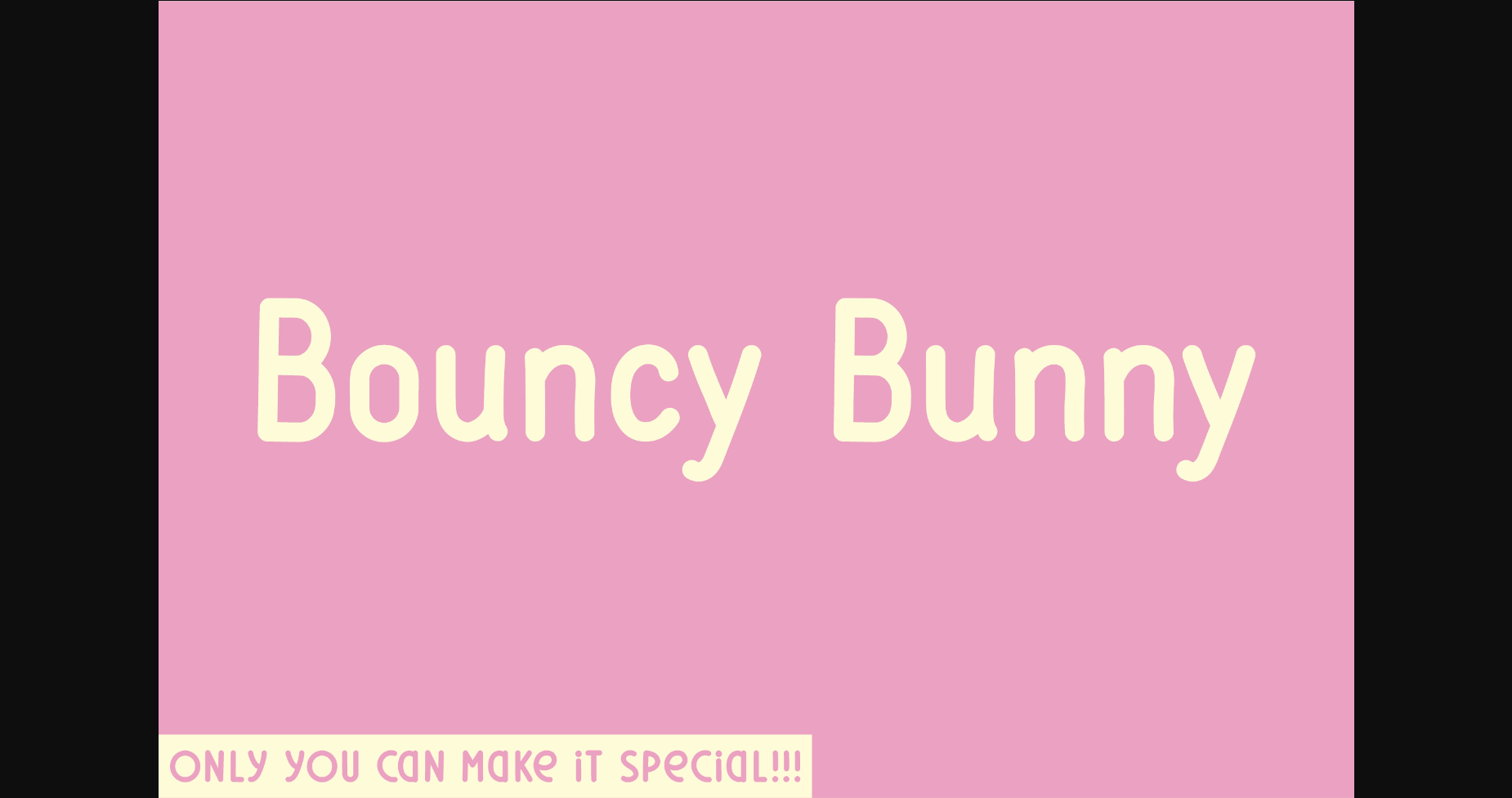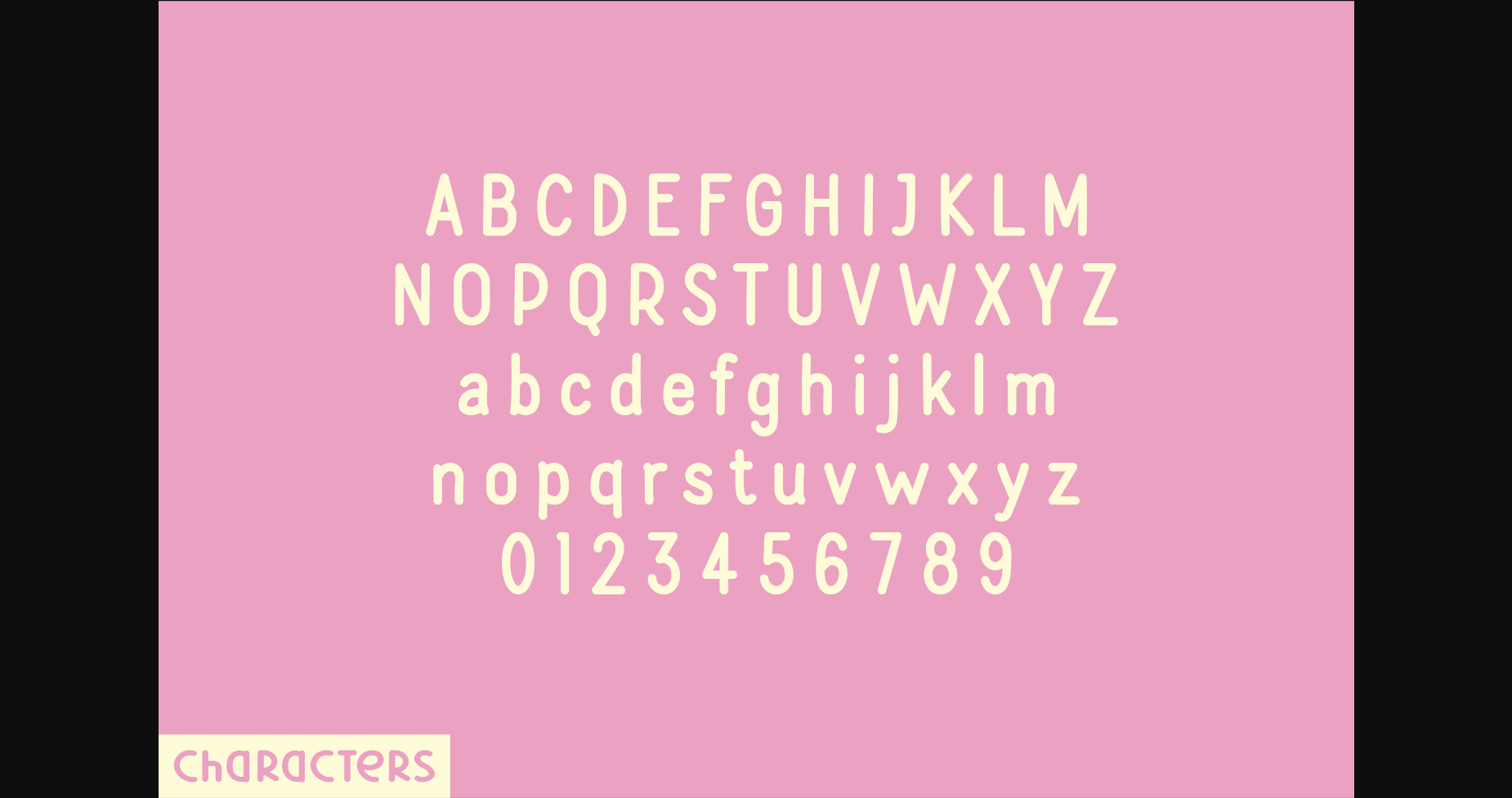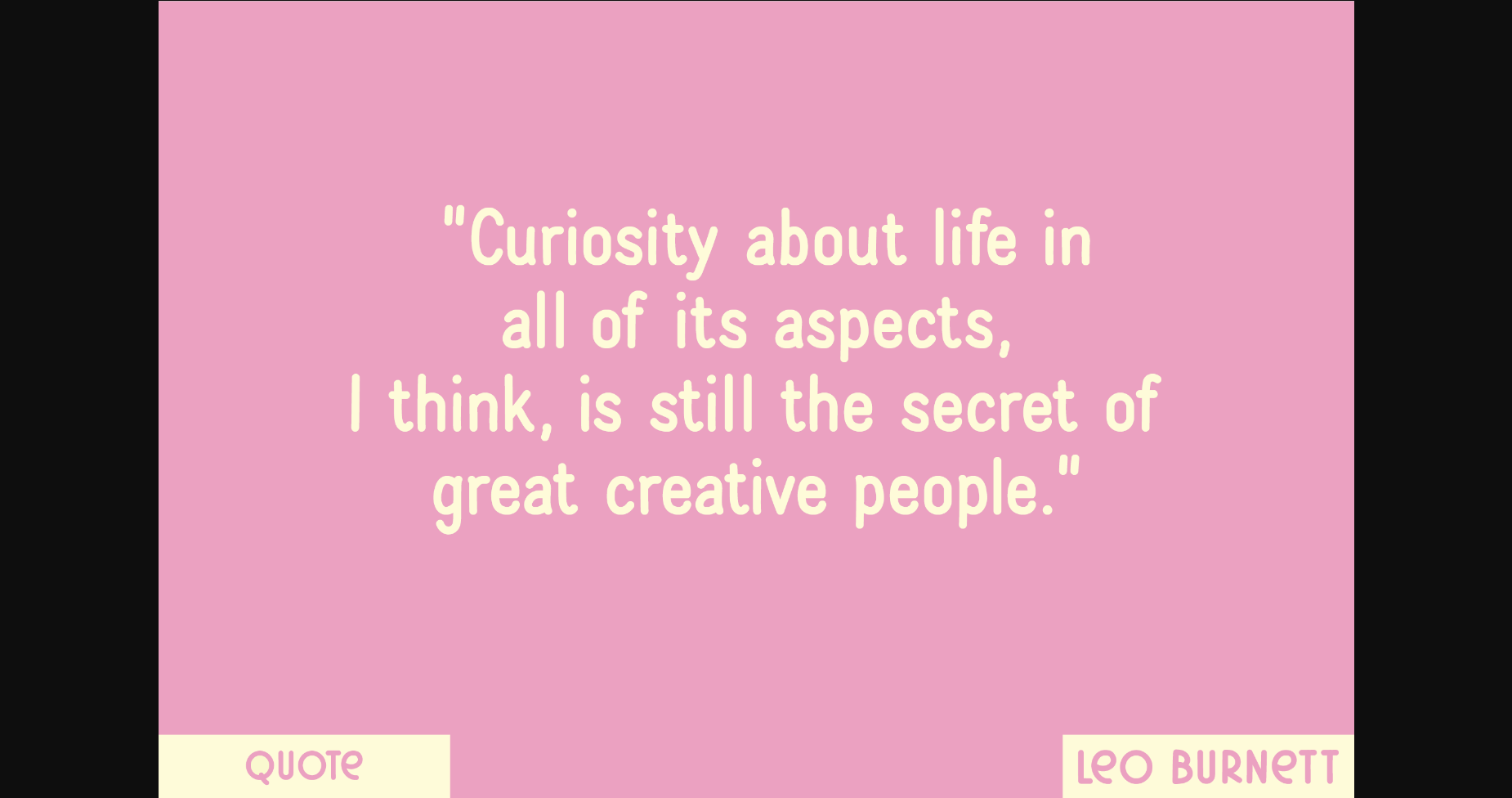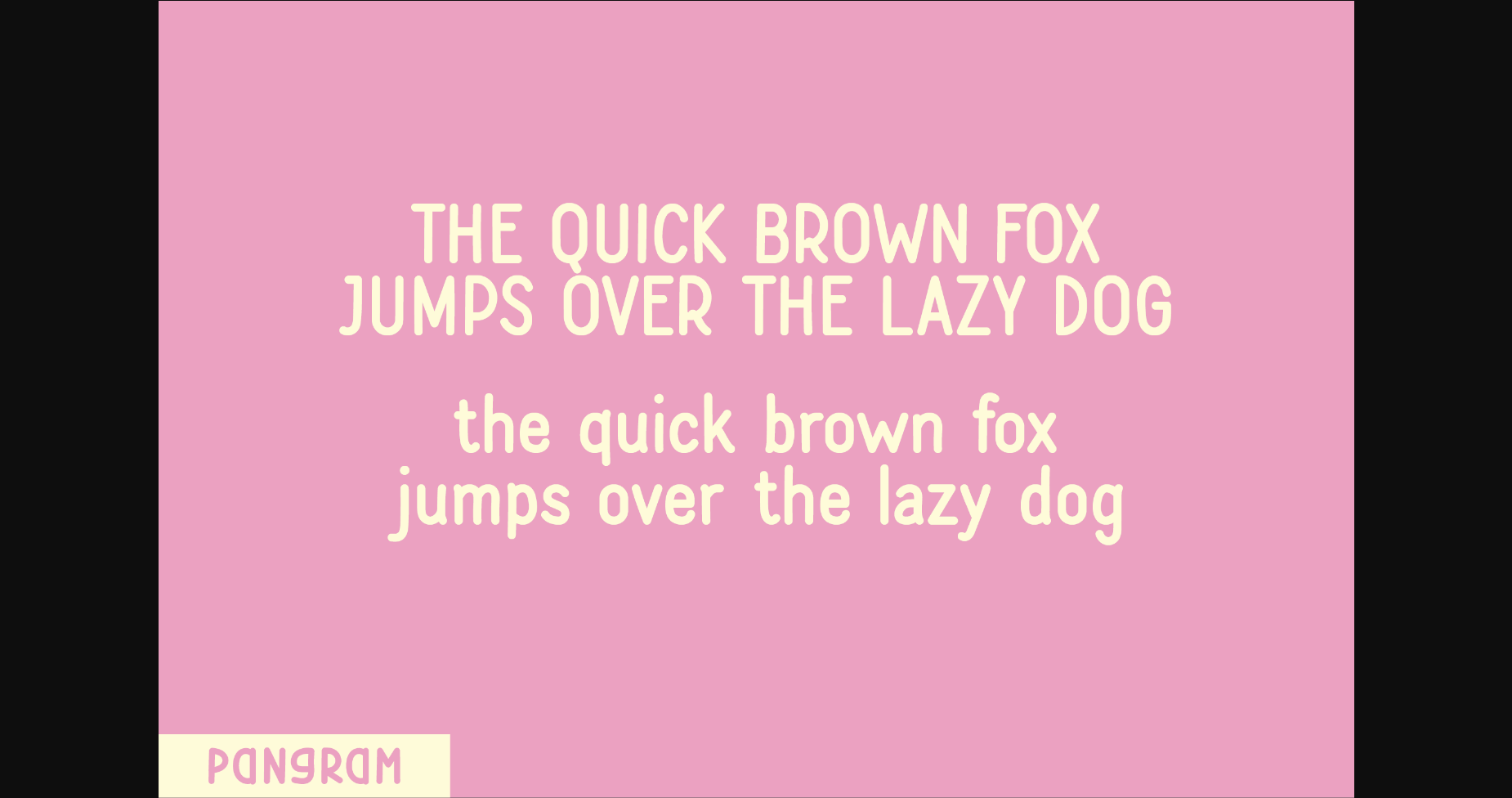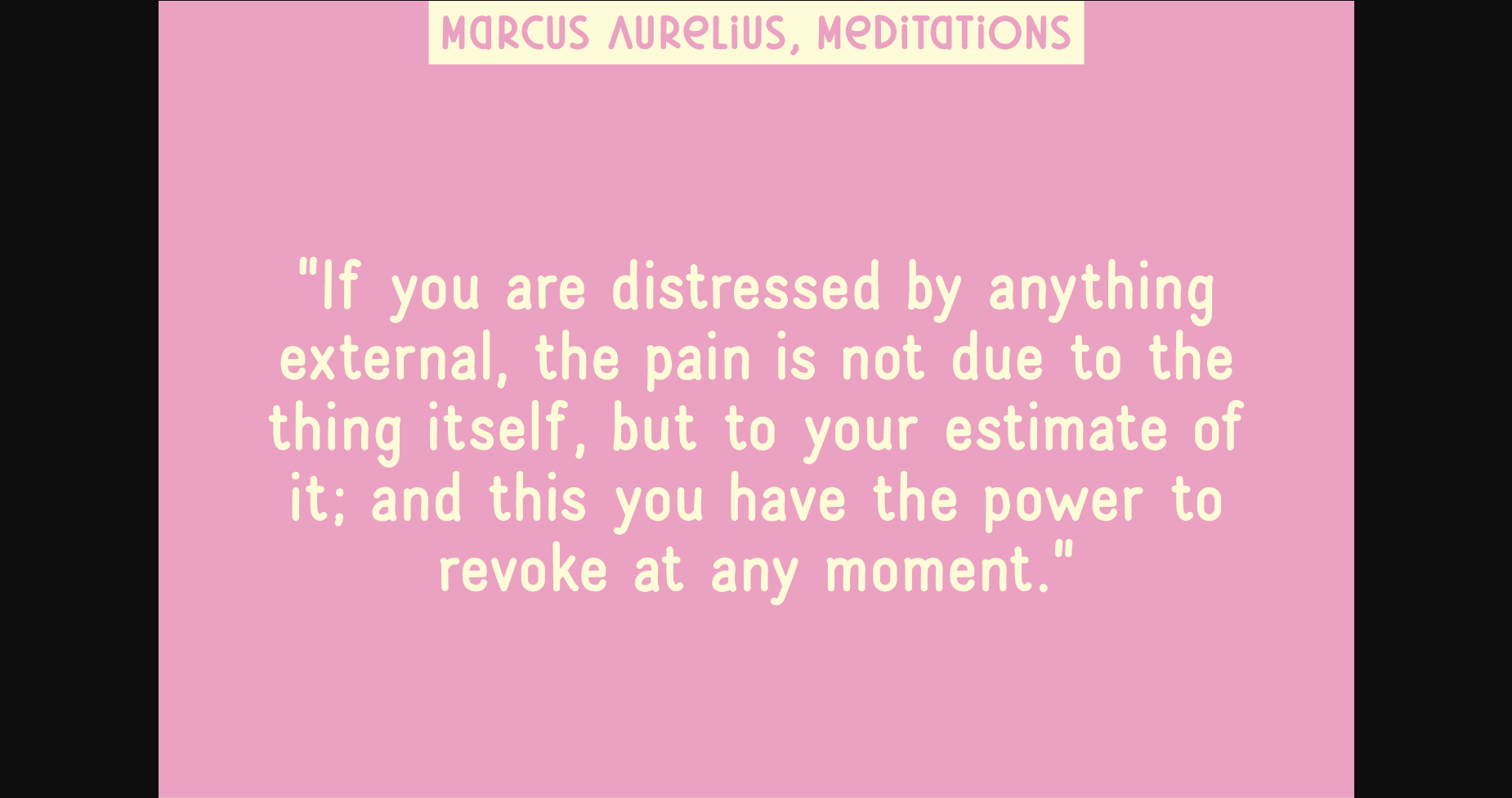
HomeSans Serif FontsBouncy Bunny Font Sans Serif Fonts Bouncy Bunny Font FacebookXPinterestWhatsApp 1 of 7 ... Bouncy Bunny Font Poster 2... Bouncy Bunny Font Poster 3... Bouncy Bunny Font Poster 4... Bouncy Bunny Font Poster 5... Bouncy Bunny Font Poster 6... Bouncy Bunny Font Poster 7... About Bouncy Bunny Font Bouncy Bunny is a bold and unique sans serif font, perfect for quotes, notes, tees, logos, social media and any design that requires a classic touch. DOWNLOAD NOW People also explored Brilganttyne Font Divado Font Diesel Rieban Font Quilla Font Ayla Font Margarita Font Happy Valentine Font Lazy Tuesday Script Font 352 0 TagsBouncy Bunny Font Previous articleJellybeans FontNext articleFlamingo Font LEAVE A REPLY Cancel reply Comment: Please enter your comment! Name:* Please enter your name here Email:* You have entered an incorrect email address! Please enter your email address here Website: Save my name, email, and website in this browser for the next time I comment. Personal Use Free Mandara Personal Use Free Read more about this font Dream Personal Use Free Read more about this font Token No 721 Personal Use Free Read more about this font Silver Bullet Personal Use Free Read more about this font BLOG Modern Sans-Serif Fonts That Brands Love in 2025 In 2025, modern sans-serif fonts remain a top choice for brands looking to project clarity, professionalism, and... Best Fonts for T-Shirt Design – Top 2025 Picks Transform Your Website: Elevate Your Typography with 7 Best Web Font Generators How to Cut Any Font on Cricut: Convert a Font to SVG (Free)